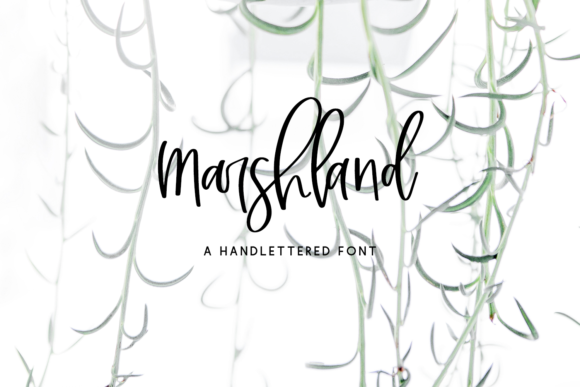
With Marshland Script Font, allow your creativity to blossom and embark on a unique typographic journey! This modern calligraphy script, crafted with the utmost care by BeckMcCormick, is not just a font; it's an artistic masterpiece that transforms your designs into visually stunning creations. Marshland Script's hand-lettered charm and customizable extras make it the perfect choice for a wide range of projects.
Picture your website adorned with Marshland Script's elegant handwritten touch. Create breathtaking logos, branding elements, and eye-catching website accents that tell a story of sophistication and charm. Fashion and travel blogs will come alive with Marshland Script's timeless charm, while magazines and flyers will exude a touch of elegance.
But Marshland Script's versatility doesn't end there. Its clean lines and classic appeal make it ideal for header elements that demand a personal touch. Social media quotes will radiate with authenticity when paired with Marshland Script's handwritten style, capturing your audience's attention and leaving a lasting impression.
With Marshland Script Font in your design arsenal, you hold the key to creating designs that resonate with your audience. Its beauty and functionality make it the perfect font for those seeking to make a statement, leave an impression, and showcase their creativity. Embrace the power of Marshland Script Font today and watch your designs flourish!